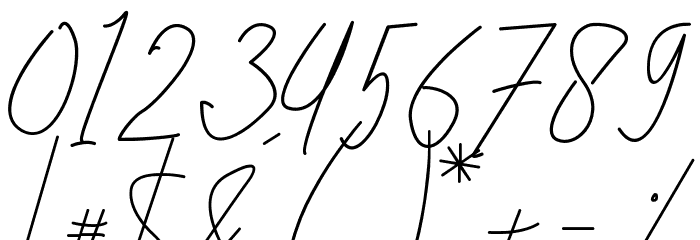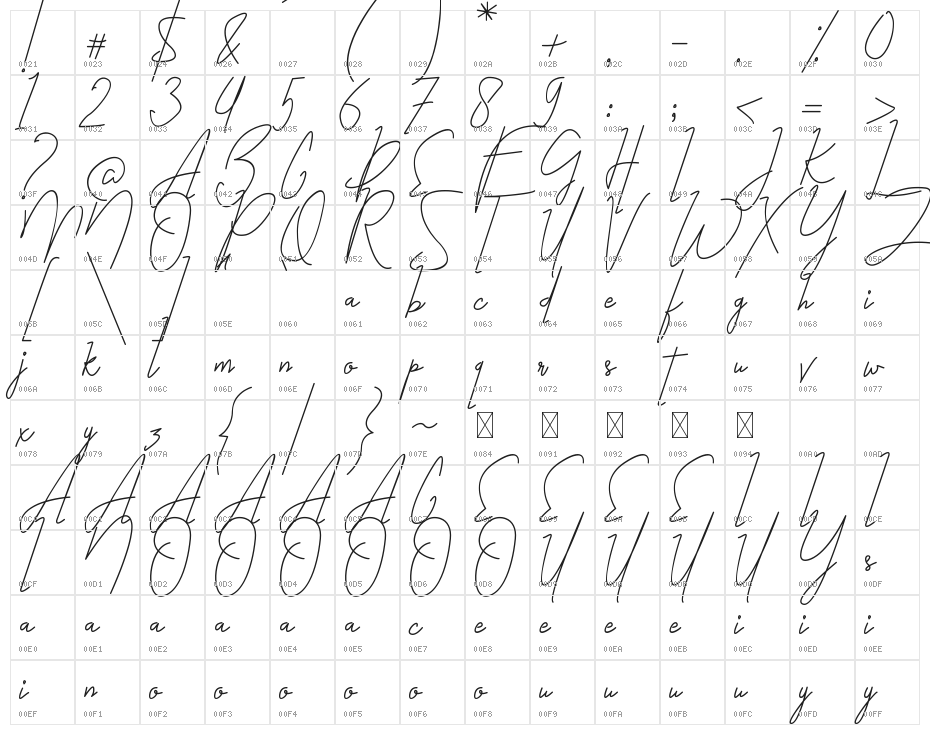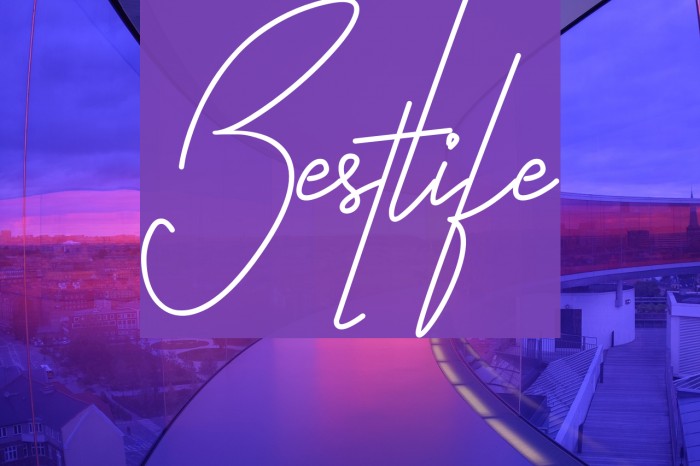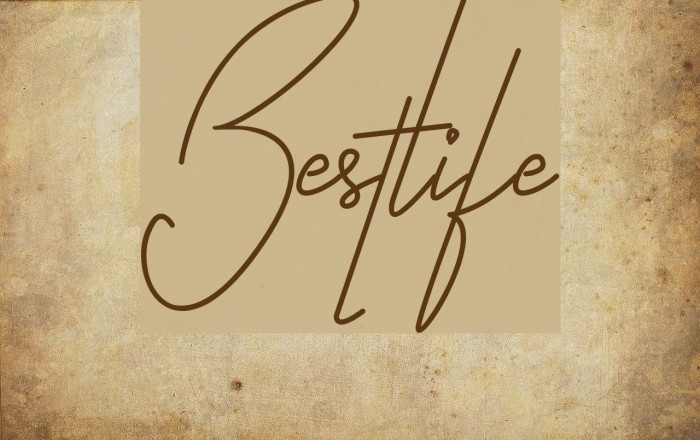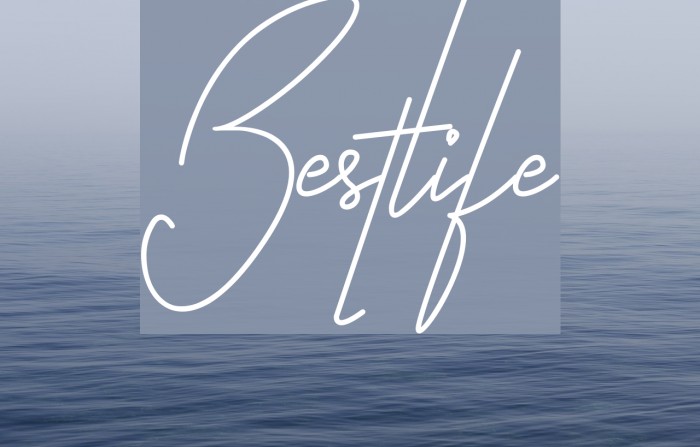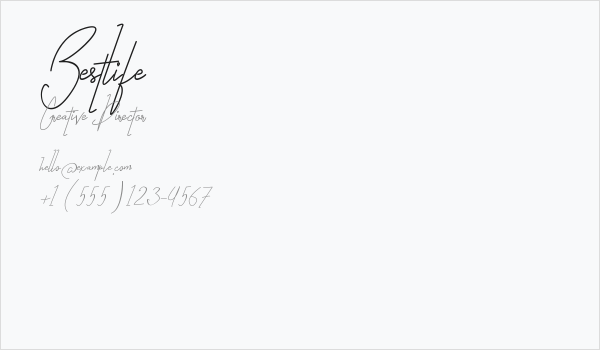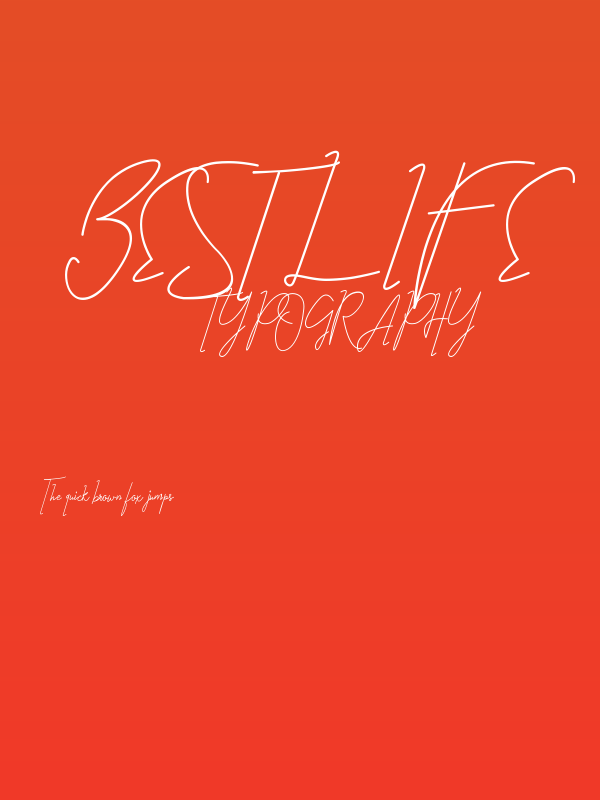
Bestlife Font
Bestlife Description
This font exhibits a dynamic and flowing handwritten style, characterized by its elegant and elongated letterforms. The uppercase letters are tall and slender, with a slight slant that adds a sense of motion and grace. The lowercase letters maintain a consistent flow, with smooth curves and connections that mimic natural handwriting. The numerals are distinct yet harmonious with the overall style, featuring similar fluidity and curvature. Special characters are integrated seamlessly, maintaining the aesthetic of handwritten script. The font's overall appearance is both sophisticated and approachable, making it suitable for a variety of creative applications.